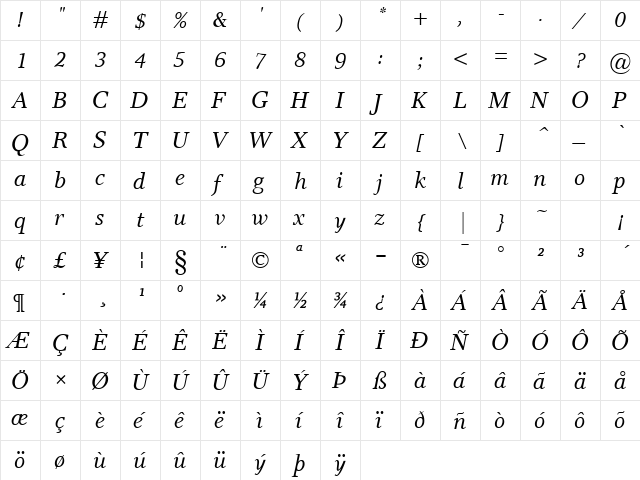
Res Publica Italic
Design Context for Res Publica Typeface
Res Publica offers clean, dependable letterforms without strong stylistic allegiance, making it a practical choice for designers who need flexibility. Its italic angle brings a sense of urgency and motion to the letterforms.
Pro Tip: Try Res Publica for annotation and caption copy alongside an upright companion — the contrast in angle creates a dynamic but ordered typographic system.